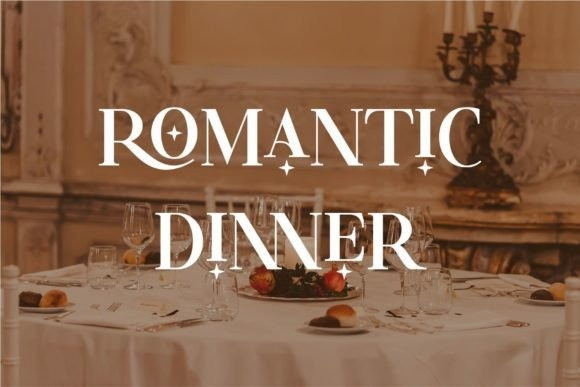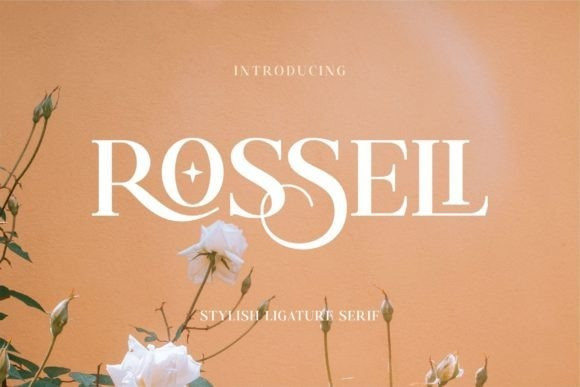
Rosseli Font
Rosseli Font is an elegant serif font, inspired by the famous minimalist logo, perfect for the purposes of designing templates, brochures, videos, advertising branding, logos, invitation, layout design, elegant crafting, beauty designs and more.